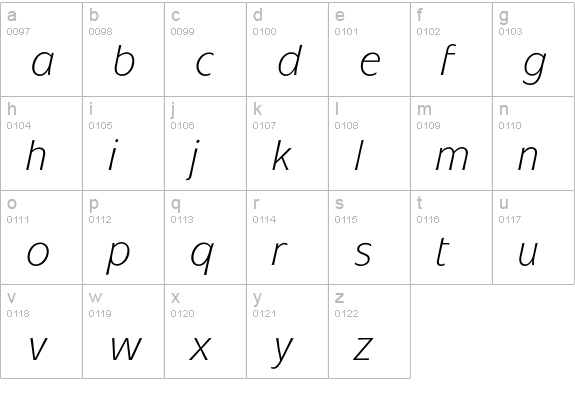
MixageBookItalic Font Details
MixageBookItalic is a versatile and elegant font that exudes sophistication and style. With its unique italic design, this font is perfect for adding a touch of class to any project. Whether you're designing a wedding invitation, creating a logo, or working on a branding project, MixageBookItalic is sure to make a statement. The best part? MixageBookItalic is completely free to download at FontsMarket.com. This means you can add this beautiful font to your collection without breaking the bank. Don't miss out on the opportunity to enhance your designs with MixageBookItalic - download it today and let your creativity shine!